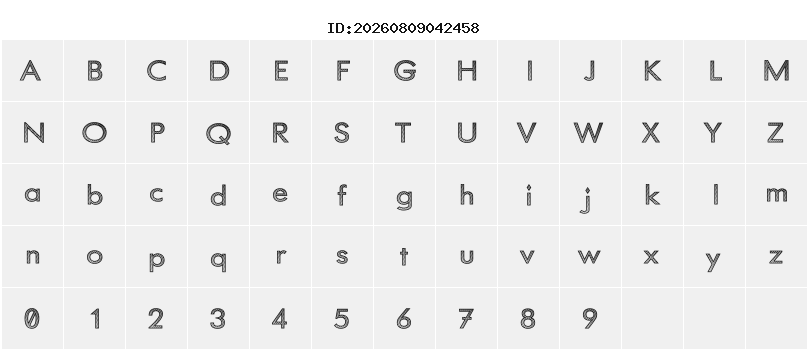
• Font Name: Phoenix Arise
About Phoenix Arise.ttf
Phoenix Arise.ttf is a modern, elegant sans-serif font designed for ultimate readability and visual harmony. Perfect for branding, headlines, web design, and print materials.